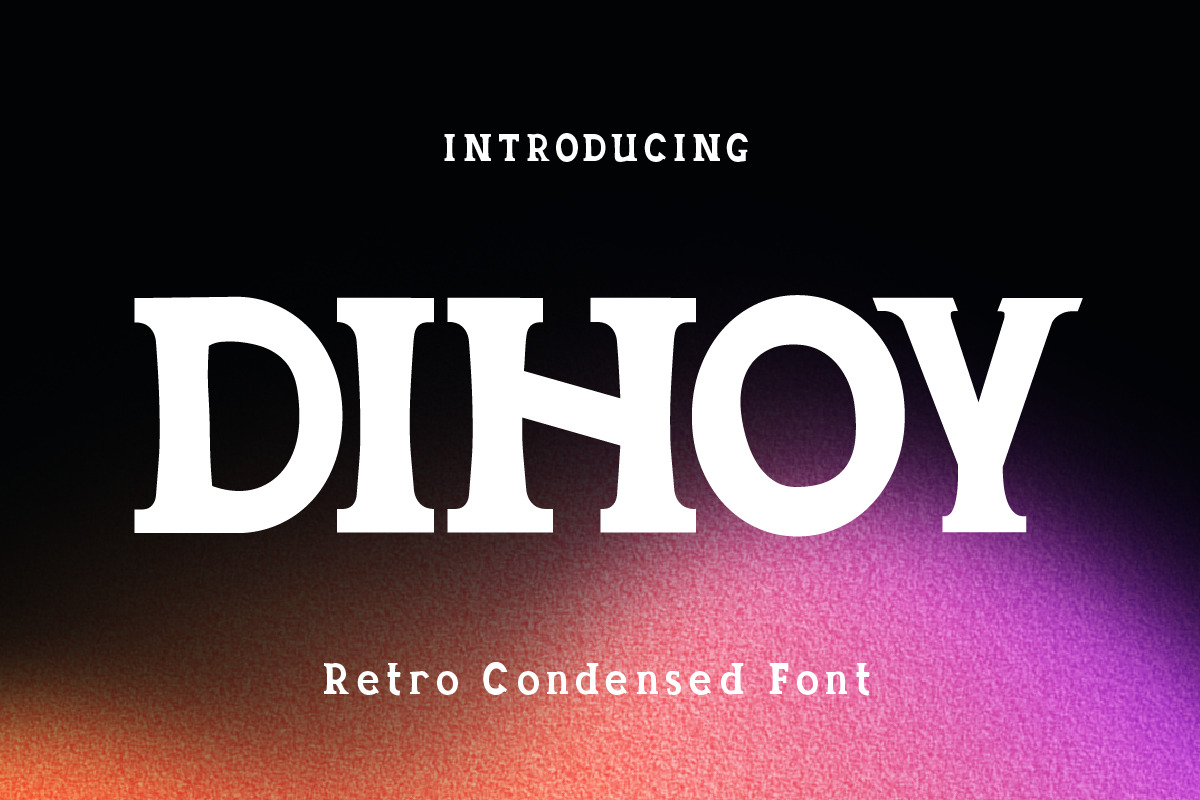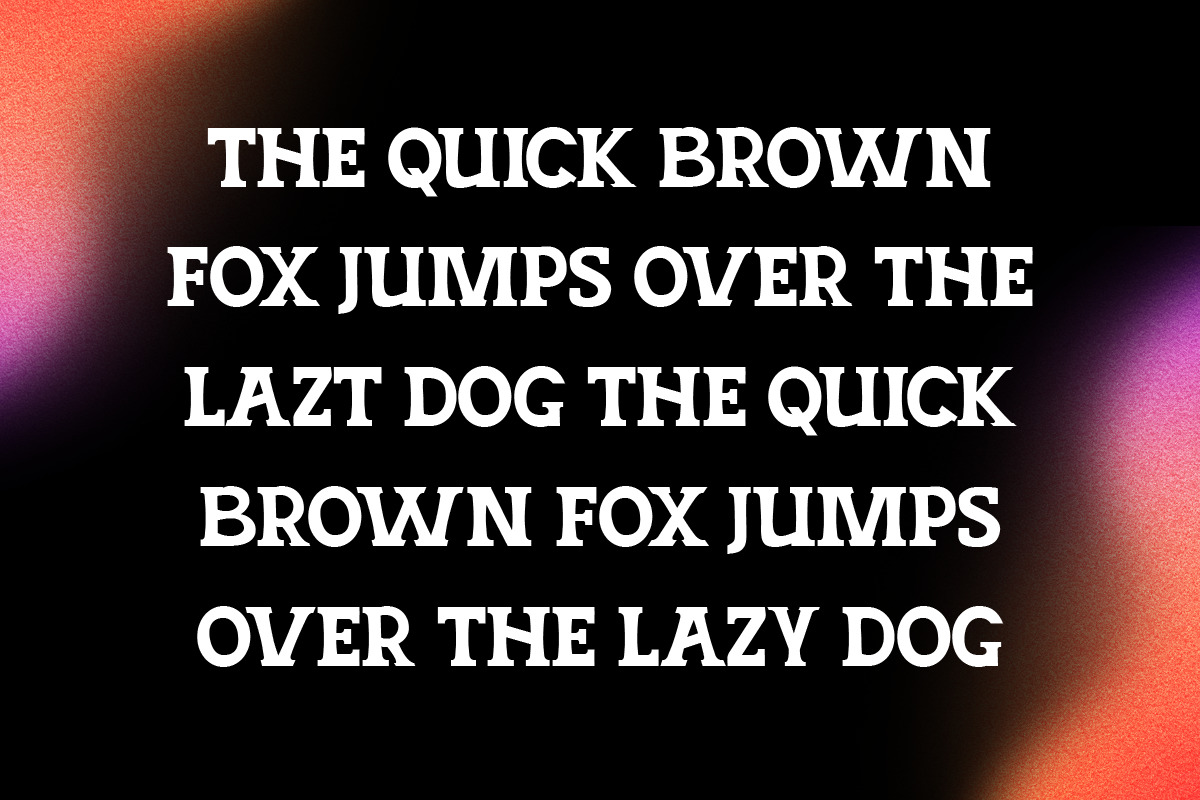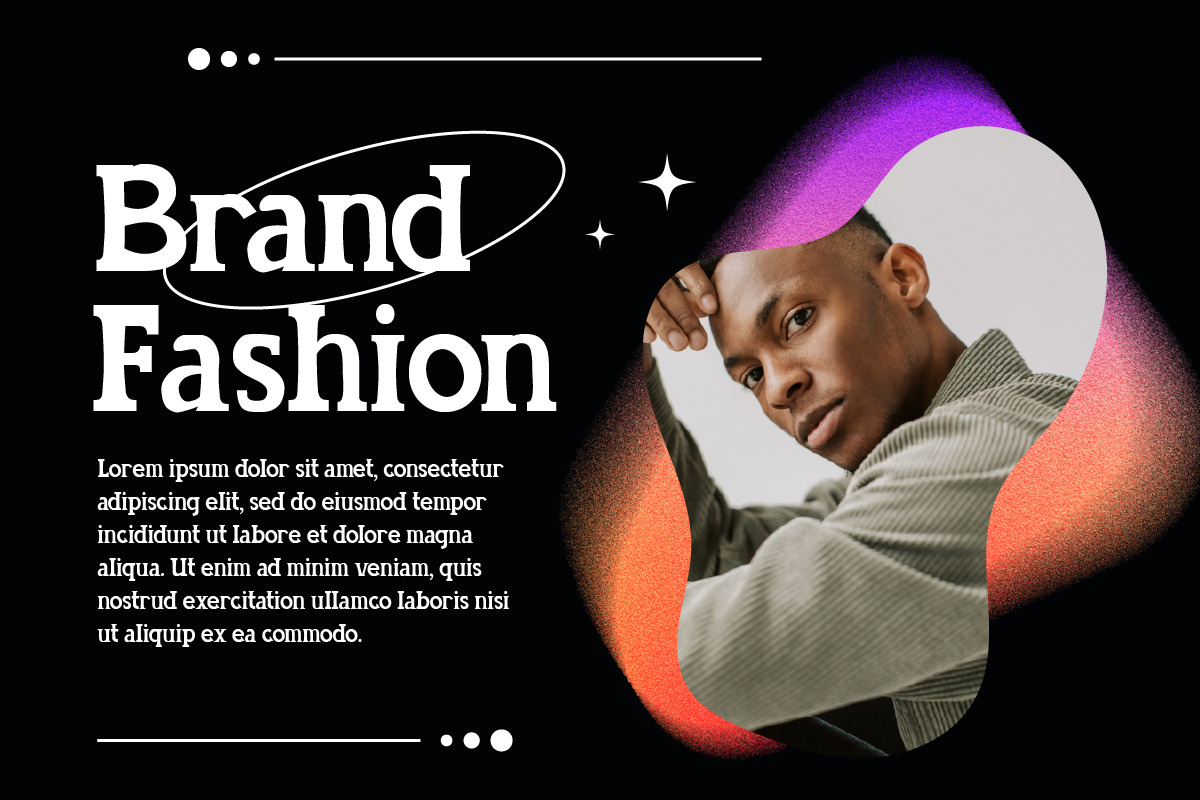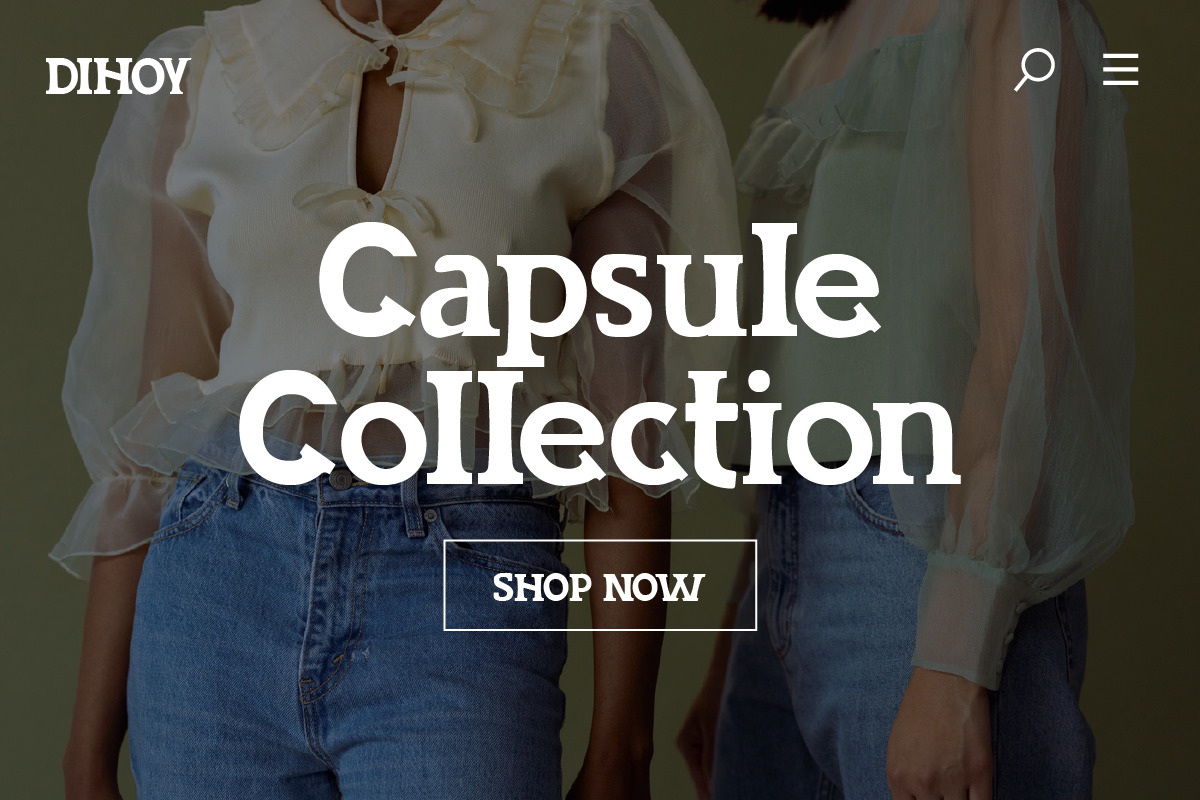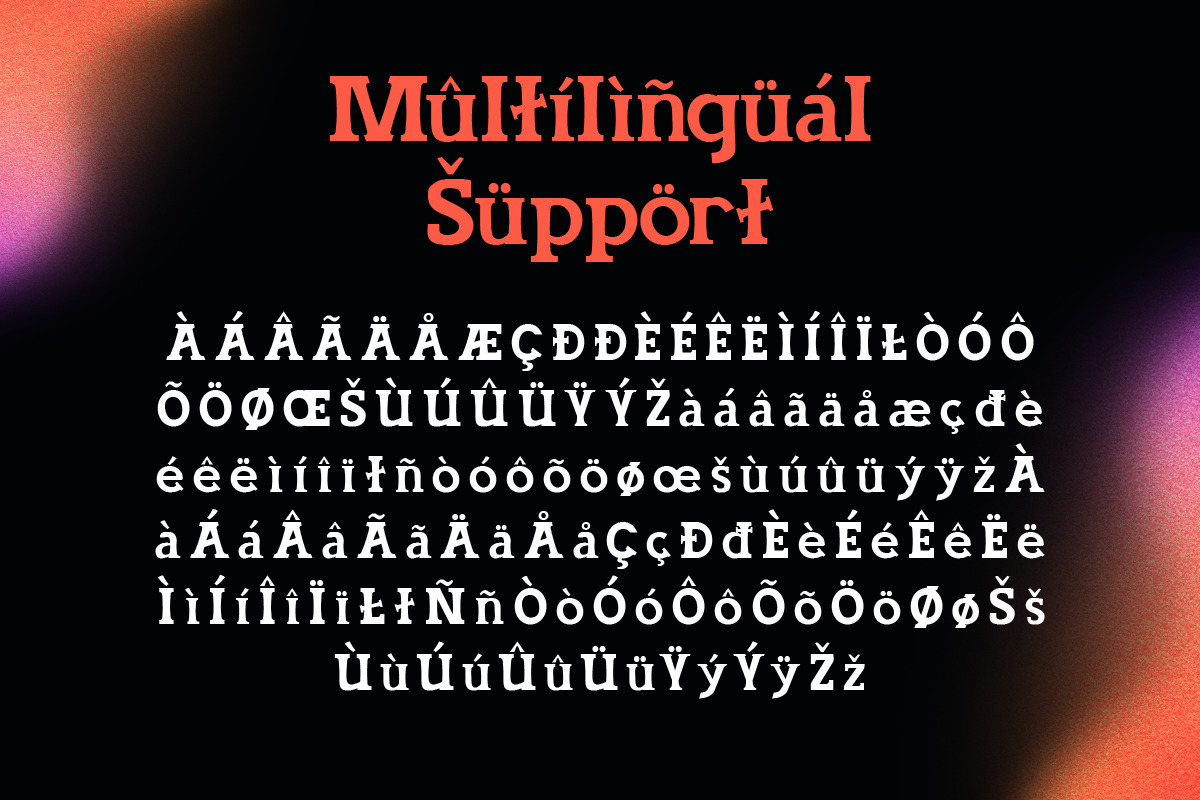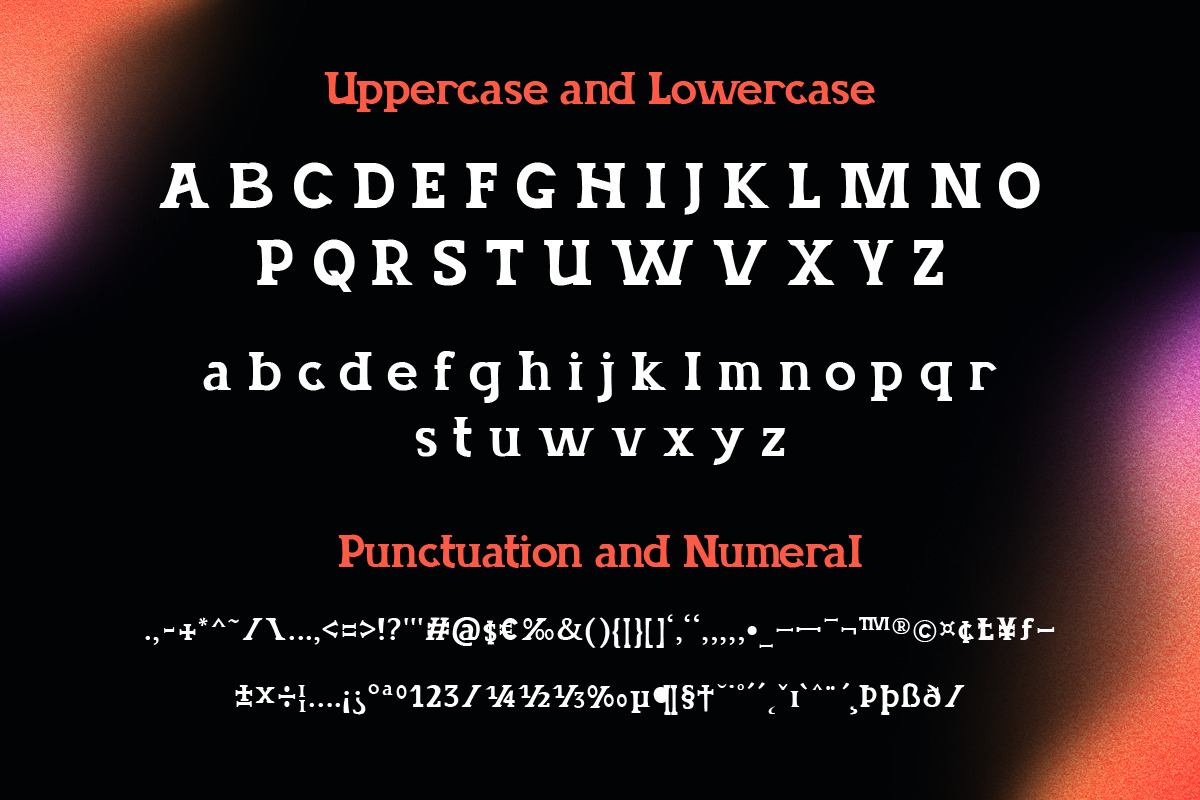
Dihoy Retro Condensed Font
Dihoy font is a typeface with a retro modern theme that is perfect for creating eye-catching designs. With its bold, playful style and vintage feel, Dihoy font adds a unique and dynamic touch to any project.
Dihoy font is versatile and can be used in a variety of design projects, such as posters, logos, packaging, and more. In just 60 seconds, Dihoy font can capture the attention of potential customers with its distinctive and playful appearance.